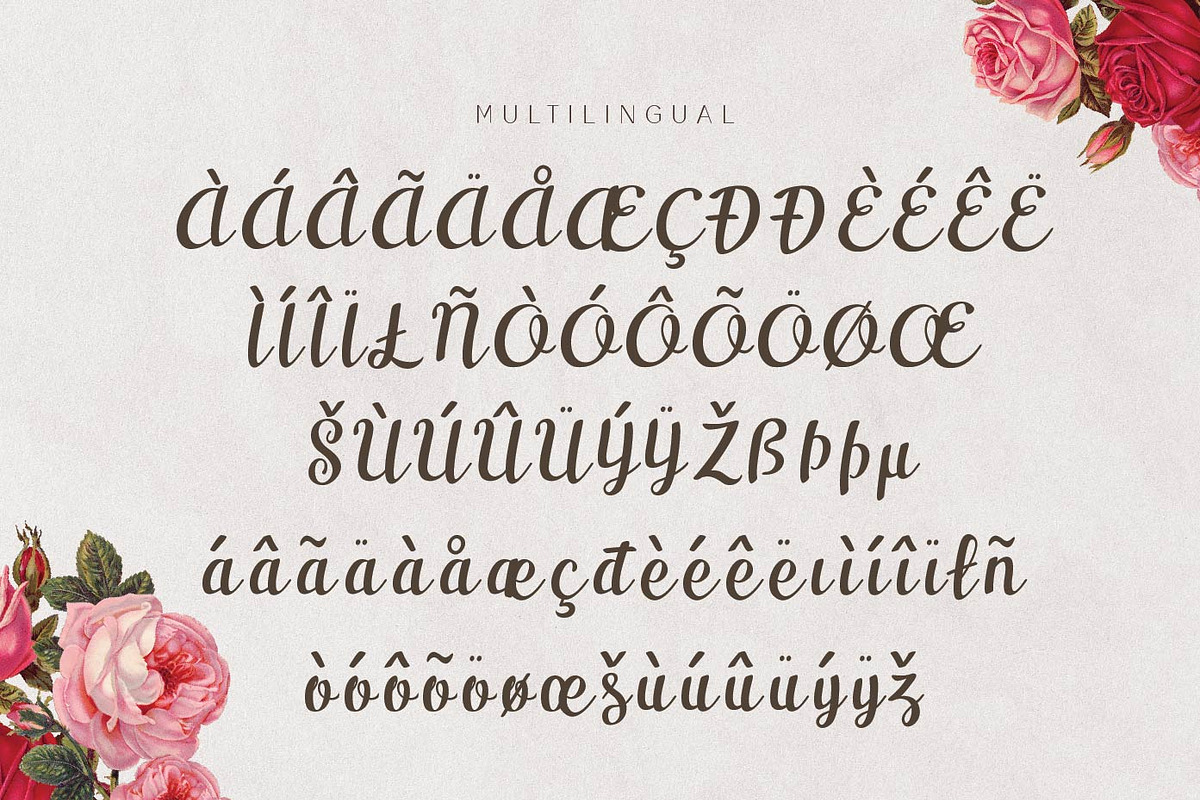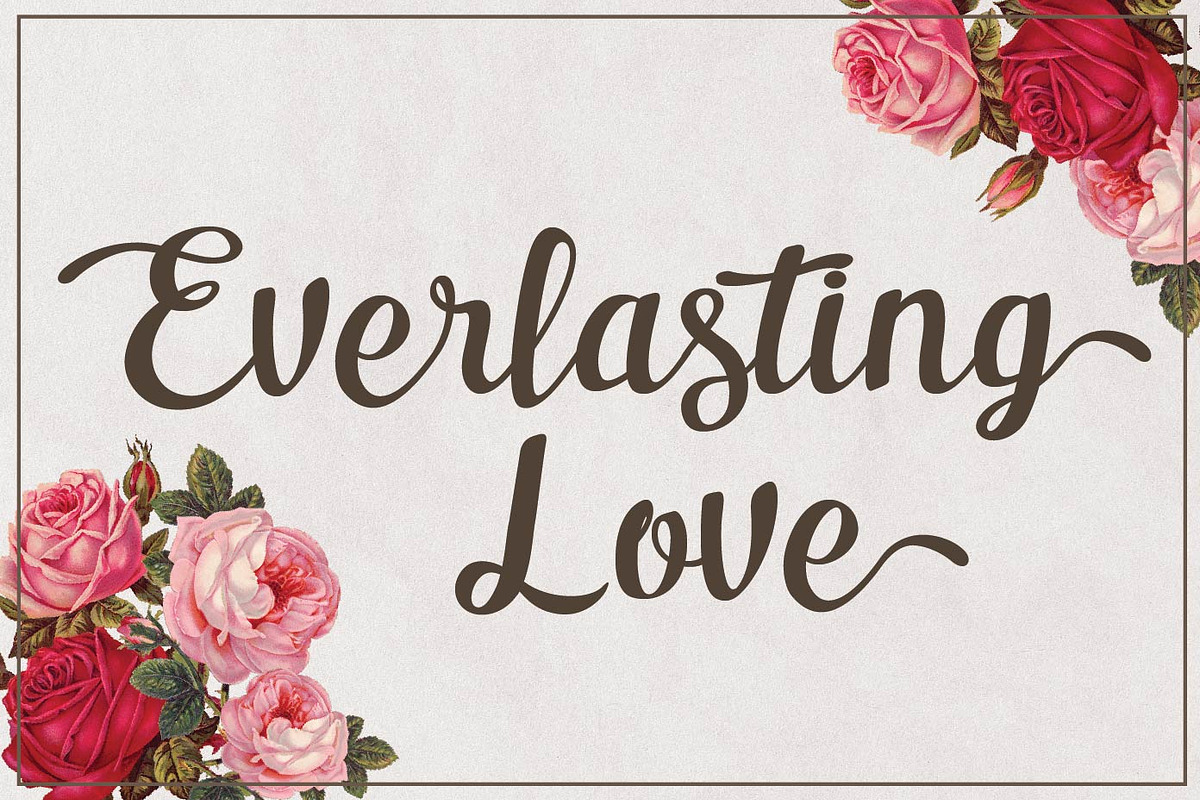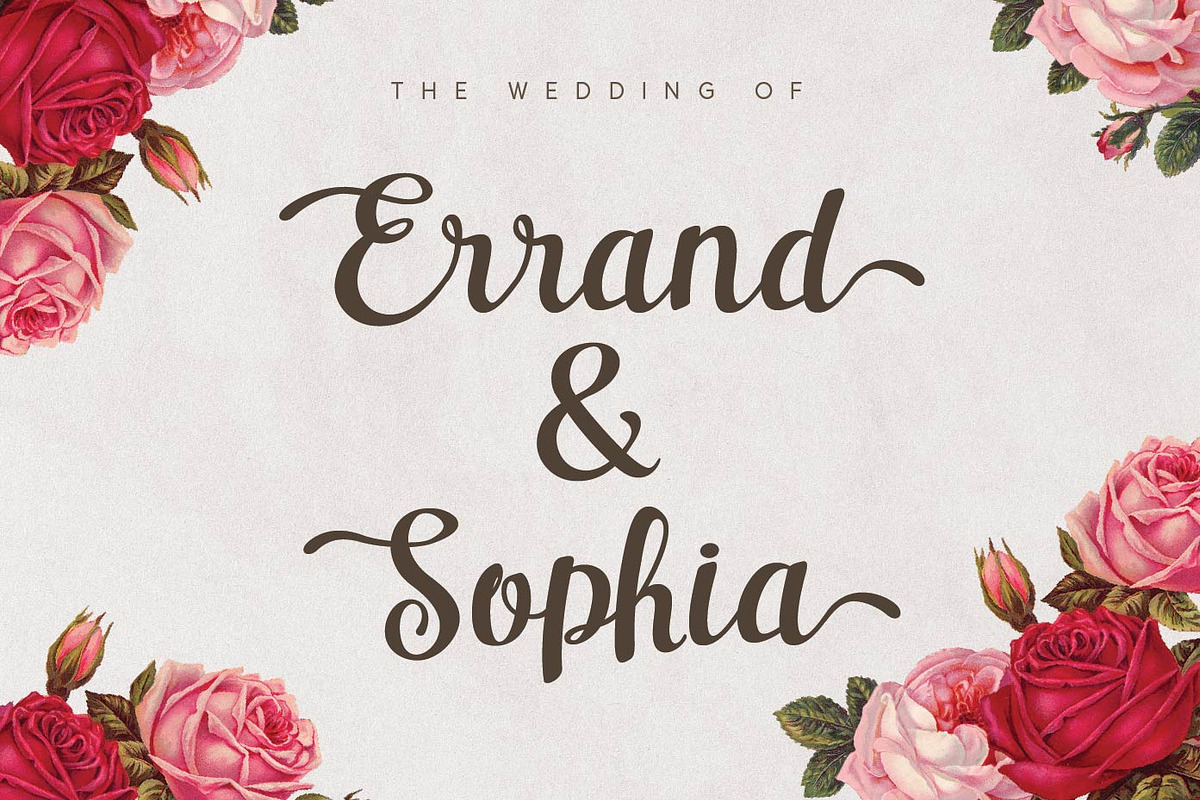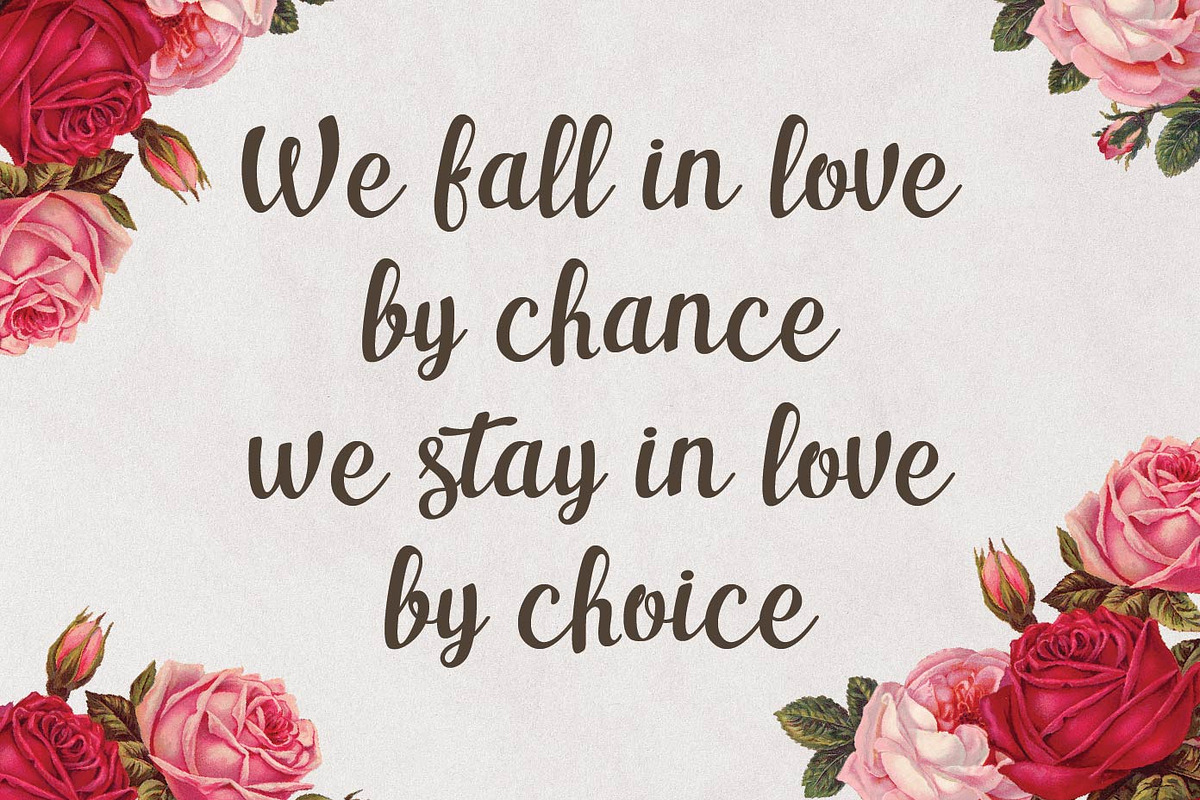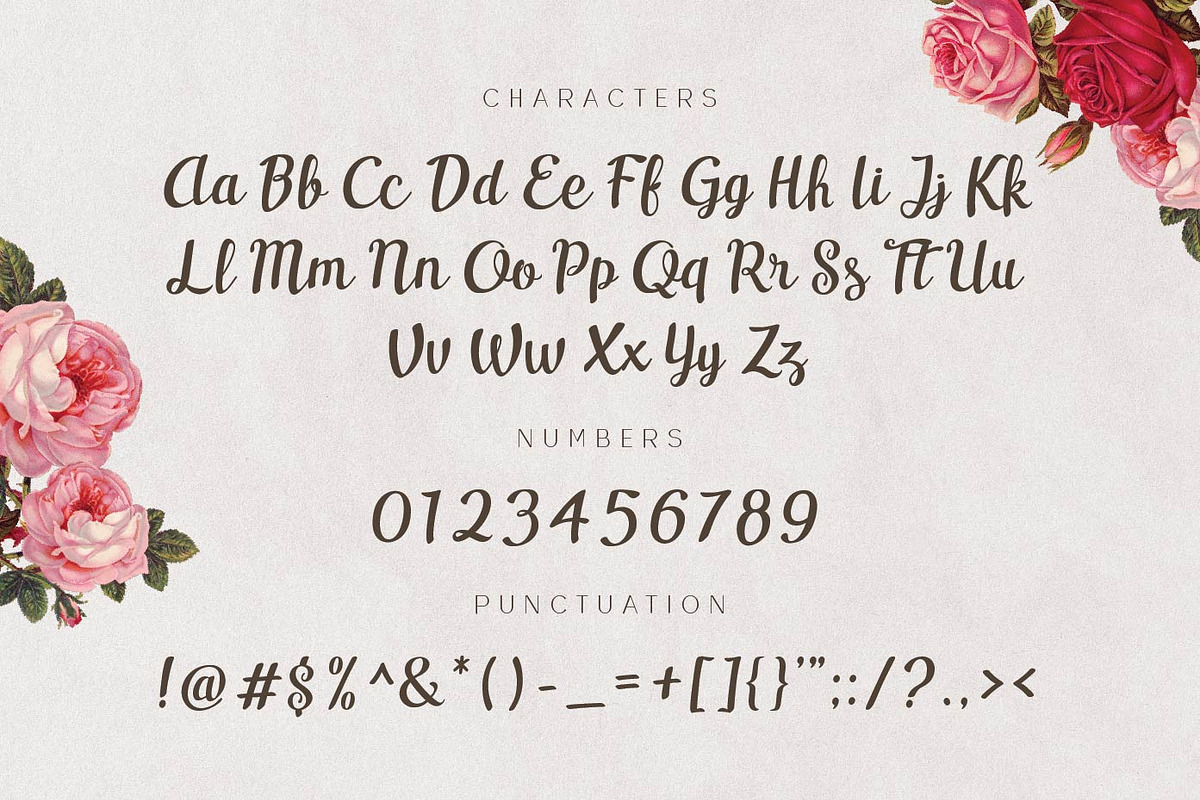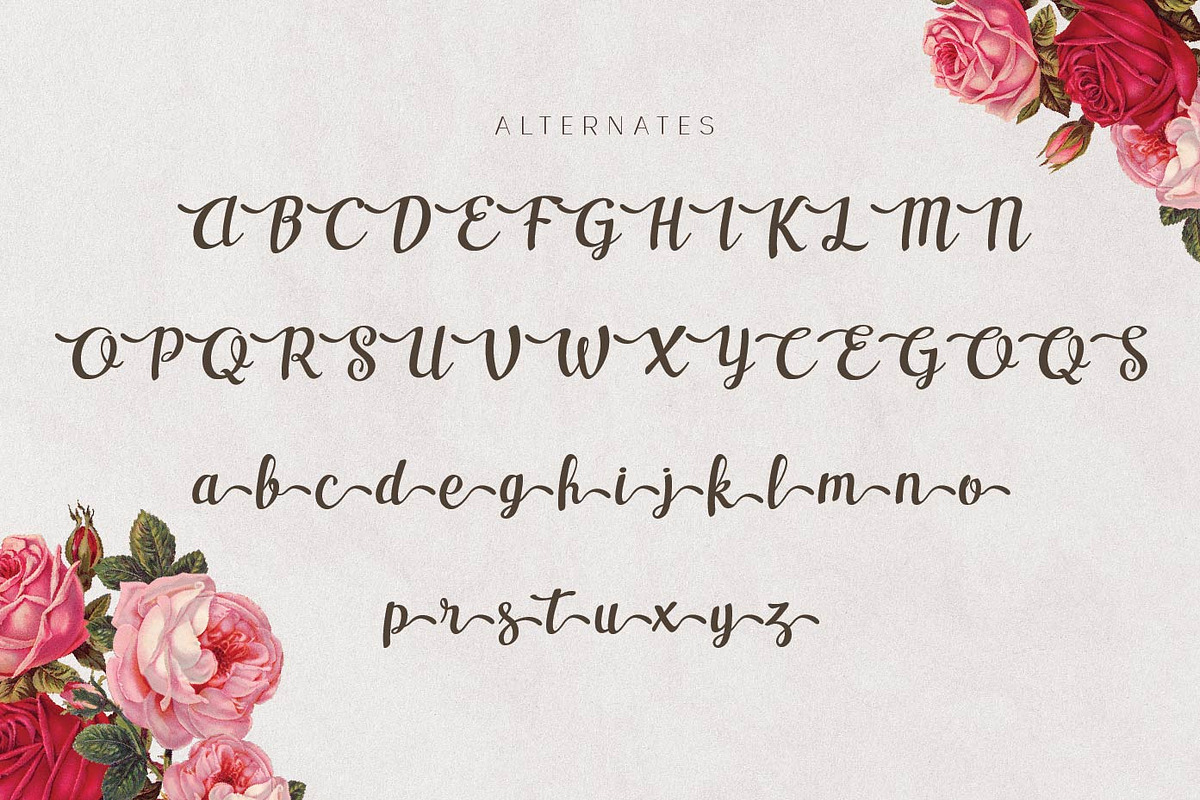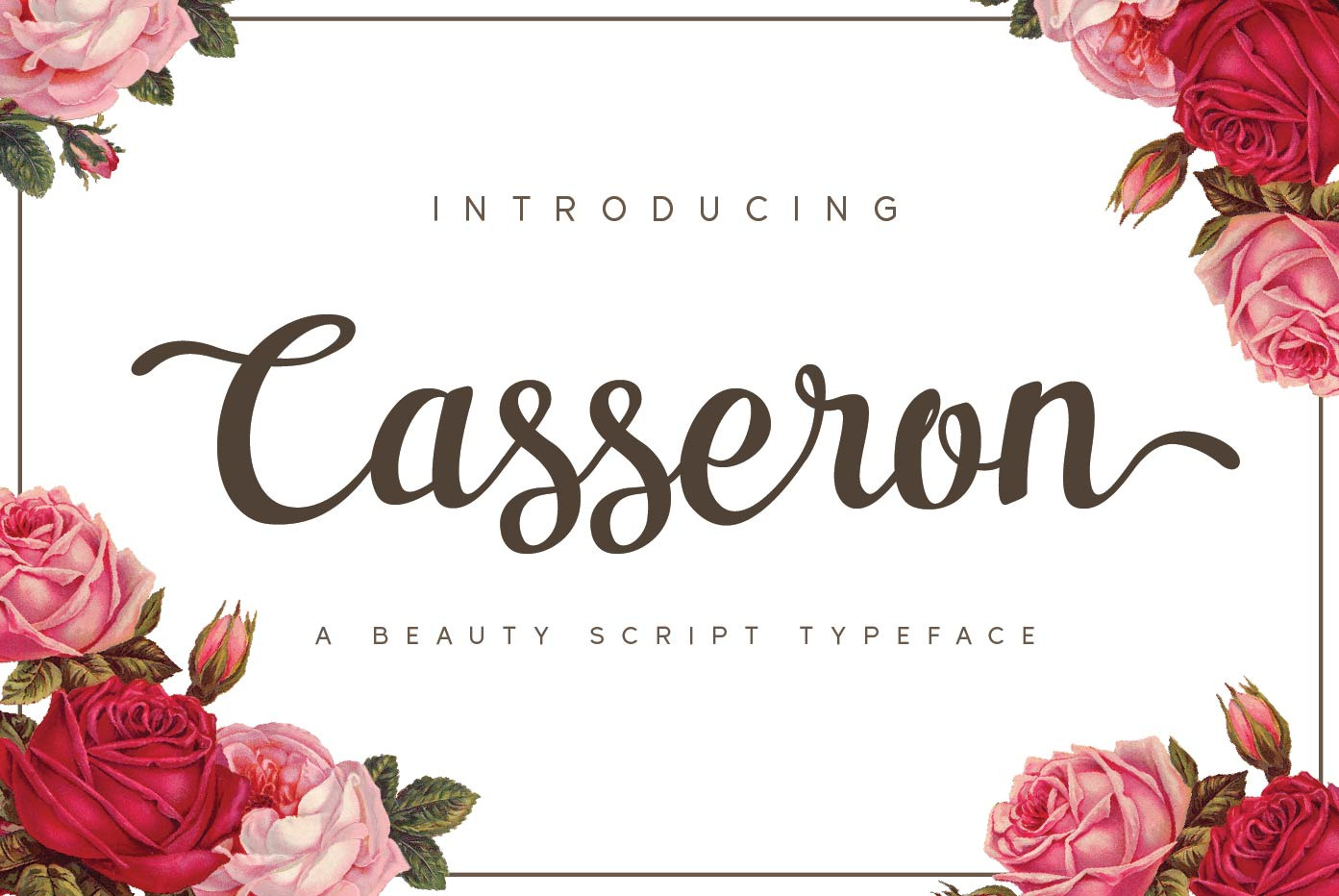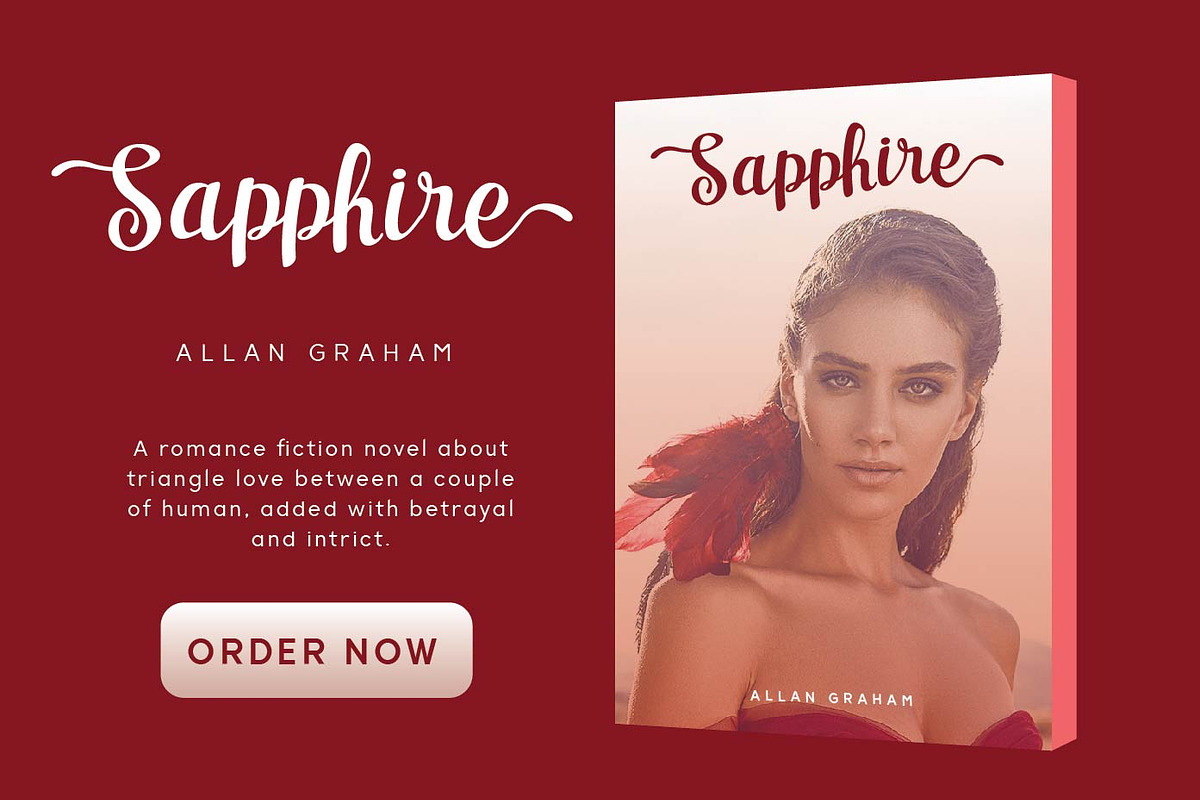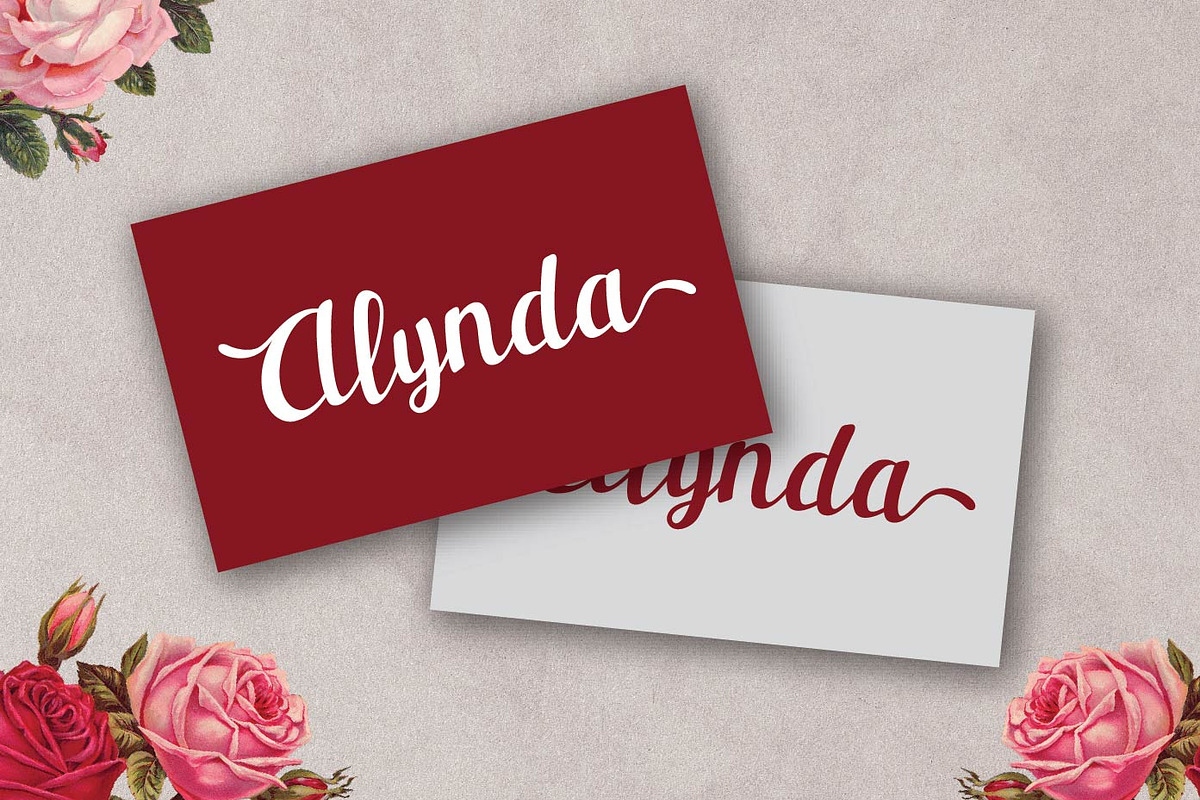
Casseron - Lovely Script Typeface
Casseron Script is a beauty script typeface with adorable cursive alternative glyphs.
Casseron Script is perfect for branding projects, logo, wedding invitation, social media posts, advertisements, product packaging, product designs, label, photography, watermark, invitation, stationery and any projects that need handwriting taste.
Fonts featured :
Uppercase Lowercase Numbers Punctuation & symbols Accented characters Alternate glyphs